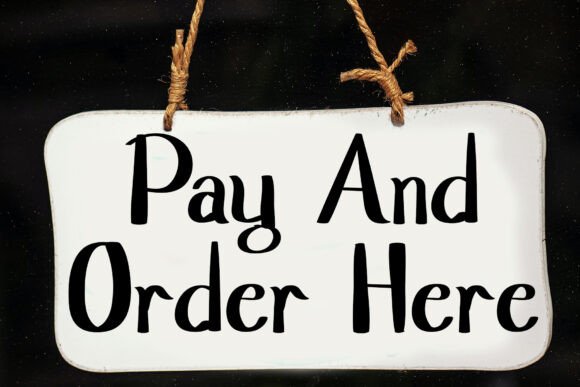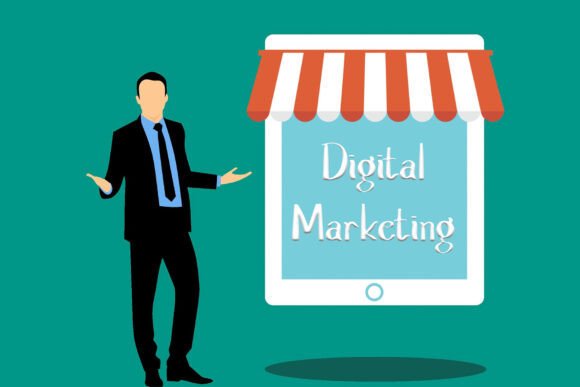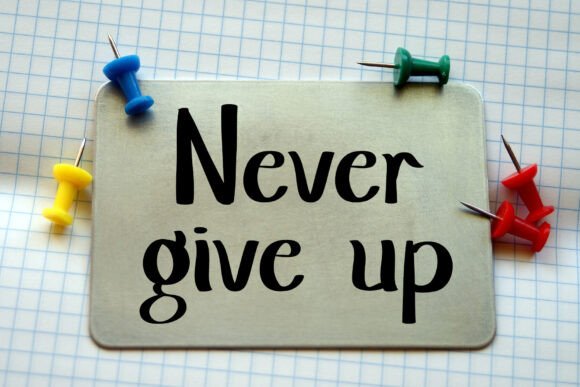
The Power of Handwritten Touch in Design
There’s something special about receiving a handwritten note from a loved one – it’s a tangible representation of thought and care. As designers, we strive to recreate that emotional connection through our work, making it personal and meaningful to our audience. For this, we need the right tools, and that’s where the Healing Font comes in – a unique and elegant typeface that brings a handwritten touch to any design.
This beautifully crafted font is perfect for adding a personal touch to wedding invitations, greeting cards, and logos, making it a valuable asset for designers. With its varied baseline and PUA encoded features, the Healing Font allows for effortless access to all glyphs and swashes, giving designers the freedom to create spectacular designs that truly stand out.
Key Features of Healing Font
- Unique Characteristics: The Healing Font features a unique blend of traditional and modern design elements, with a focus on creating a soothing and calming atmosphere
- Design Style: A mix of serif and sans-serif elements, with subtle texture and ornamentation, creating a unique and eye-catching visual experience
Healing Font Review
As a designer, I was excited to dive into the Healing Font and see what it had to offer. Overall, I found it to be a beautiful and emotive font, perfect for projects that need a touch of warmth and personality.
- Expressive curves and flourishes give the font a hand-drawn feel.
- The font’s imperfections and irregularities make it feel more human and relatable.
- The font is highly customizable, with a wide range of weights and styles to choose from.
- The font is highly legible, even at small sizes.
- The font may not be suitable for projects that require a more formal or corporate tone.
- The font’s imperfections can sometimes be distracting or difficult to read, especially in long blocks of text.
- The font may not be compatible with all font rendering engines or systems.
The Healing Font is a beautiful and expressive font that is perfect for projects that need a touch of warmth and personality. While it may not be suitable for all projects, it is a great choice for designers who want to add some emotion and character to their work. With its wide range of customization options and high legibility, the Healing Font is a great addition to any designer’s toolkit.
Tips for Getting the Most Out of Healing Font
Use Healing Font to create a soothing and calming atmosphere in your designs.
Combine Healing Font with other design elements, such as images and graphics, to create a unique and engaging visual identity.
Healing Font is perfect for:
Designing wellness and self-care materials, such as meditation guides and yoga posters.
Creating calming and soothing branding materials, such as website headers and
Alternatives to Healing Font for Designers